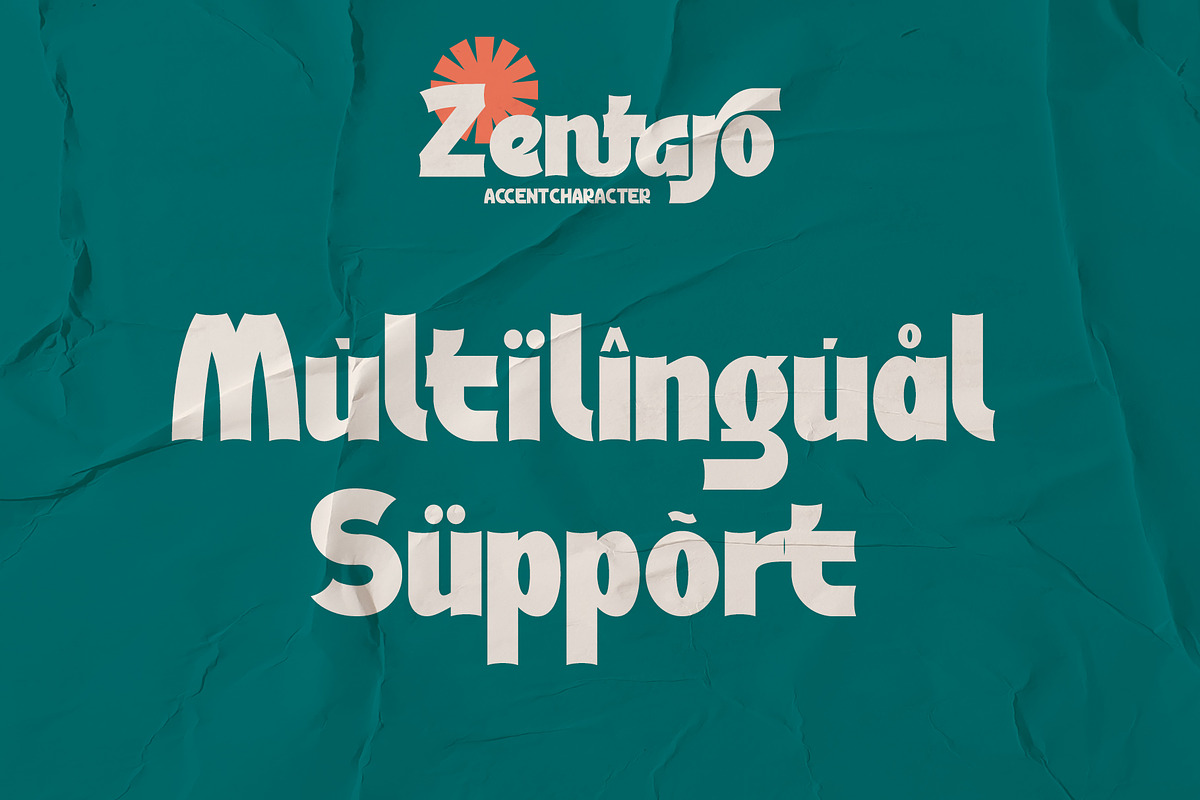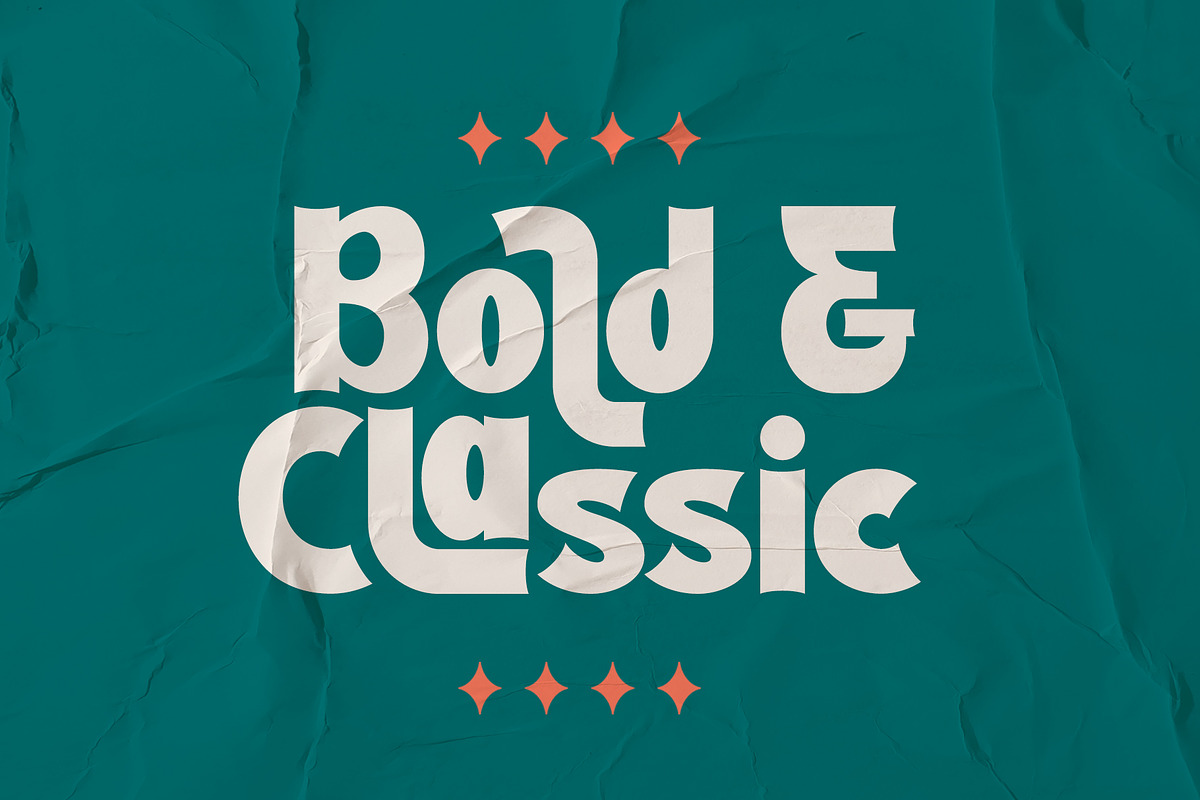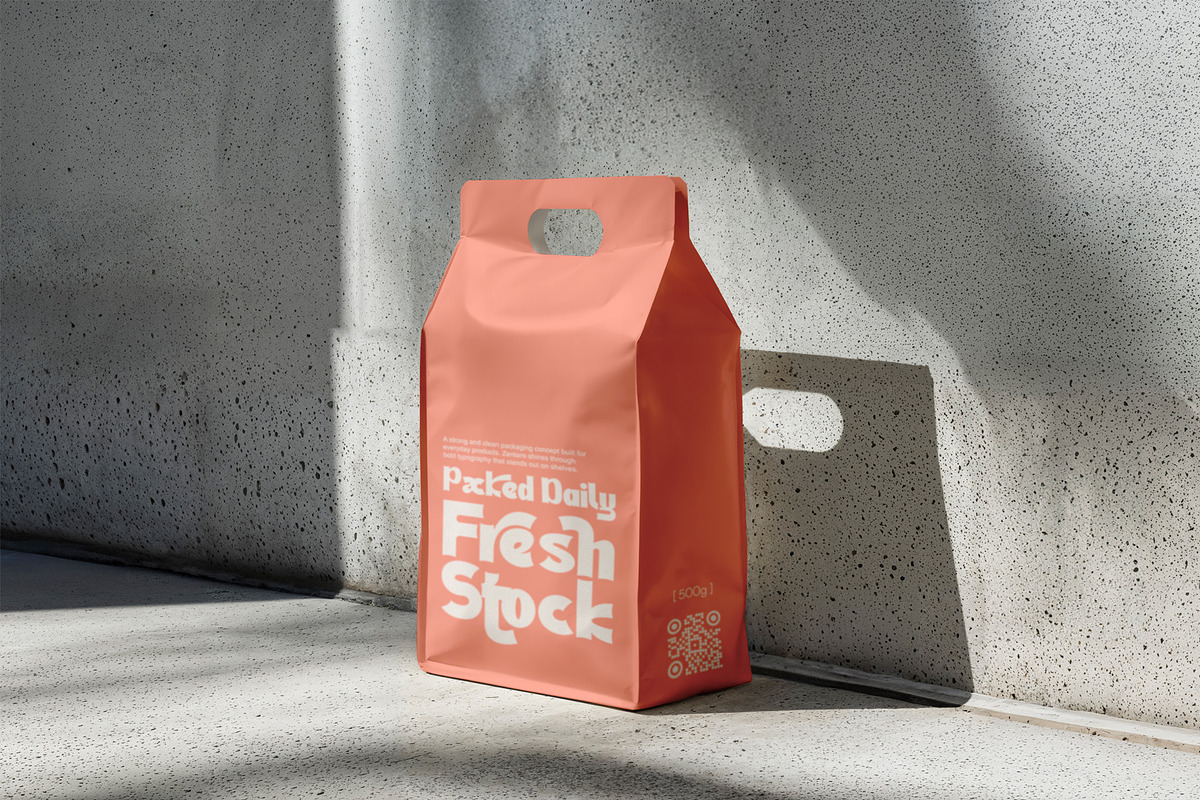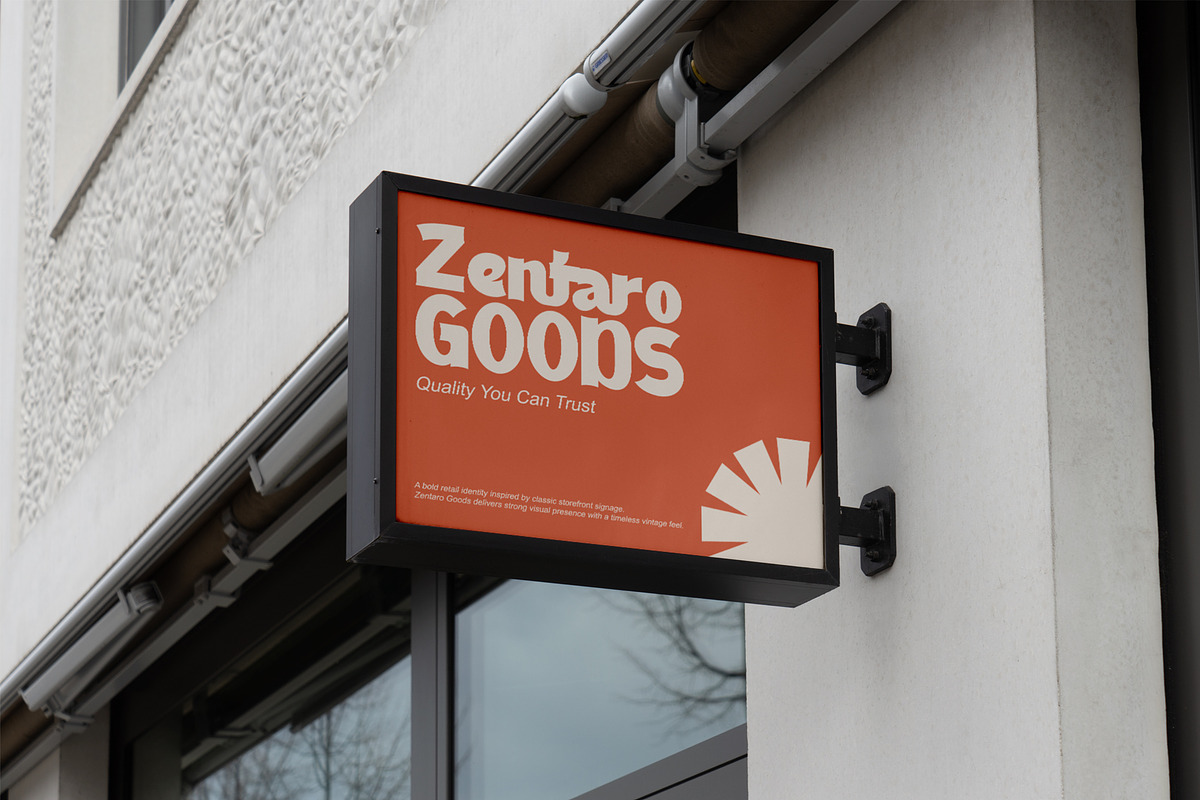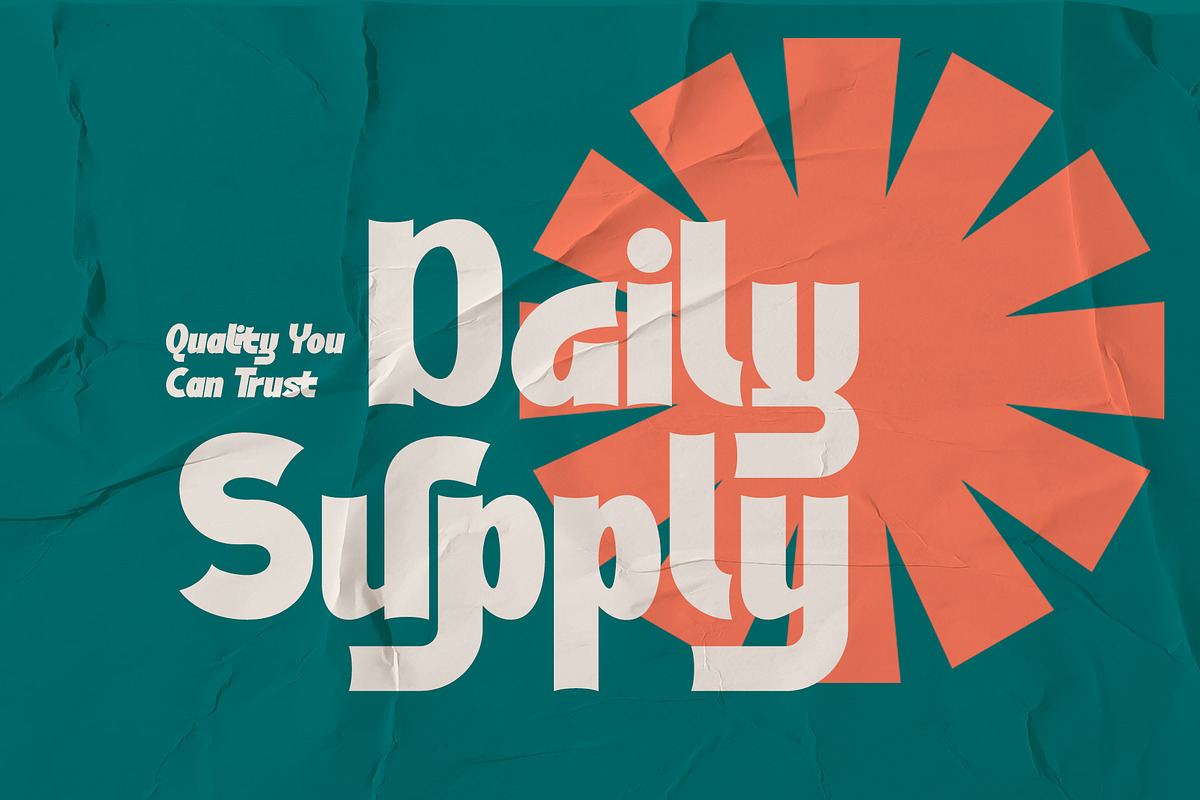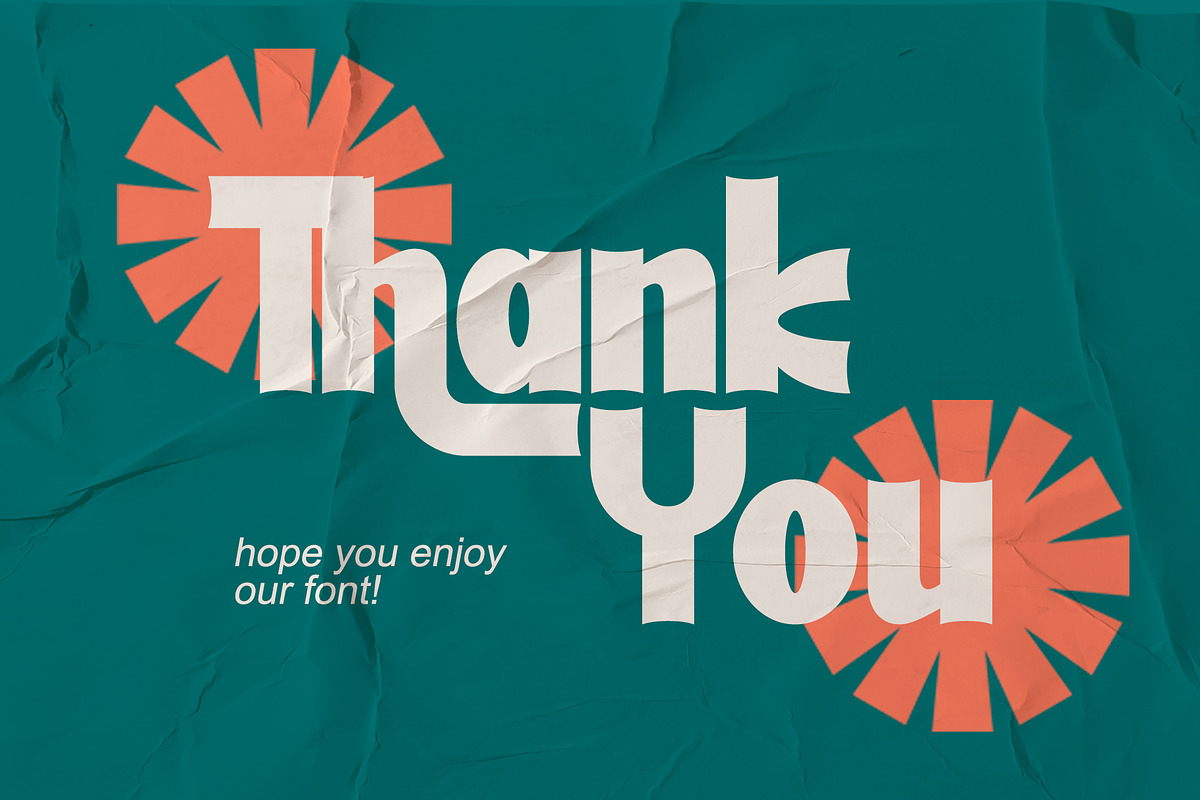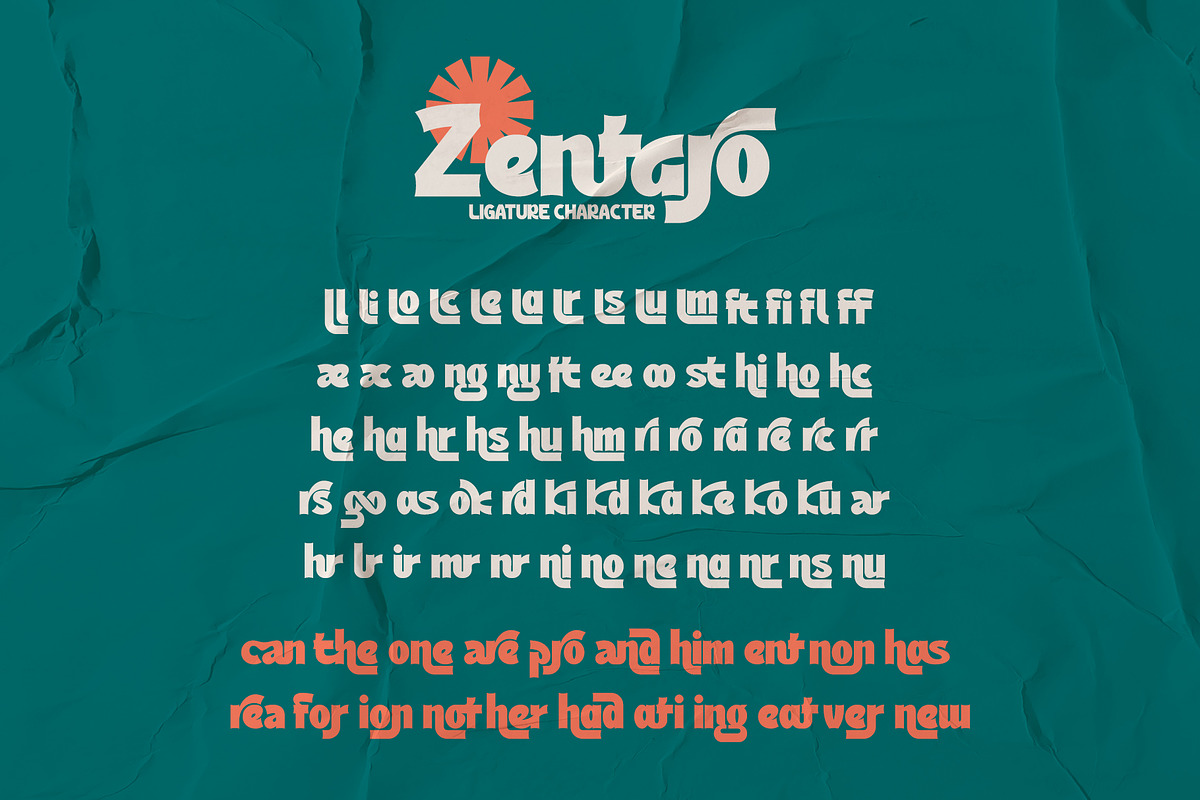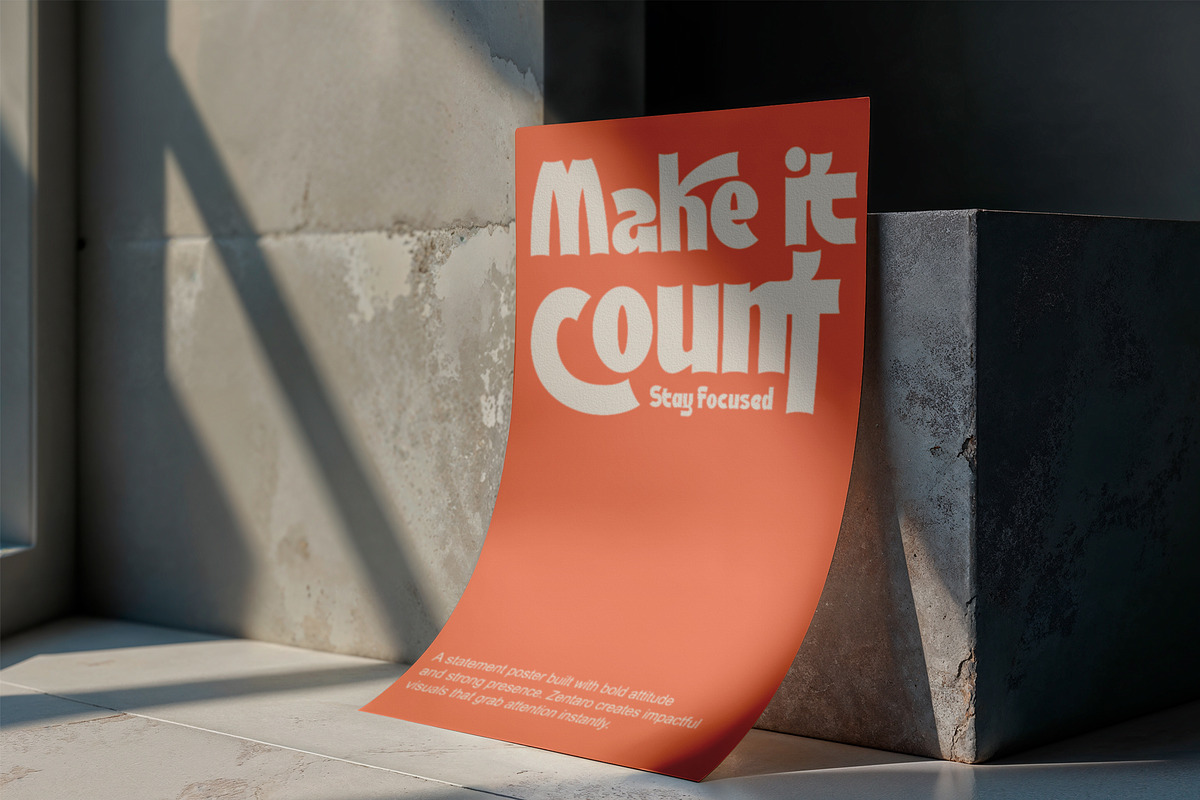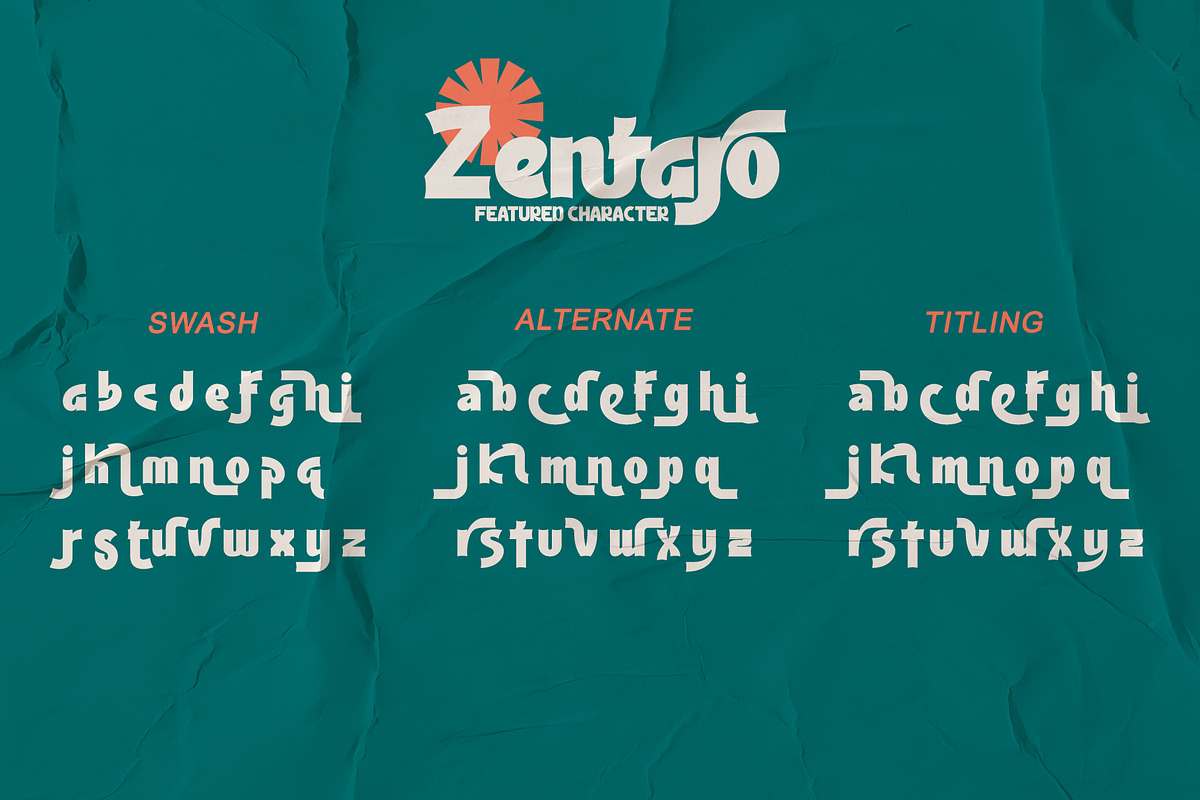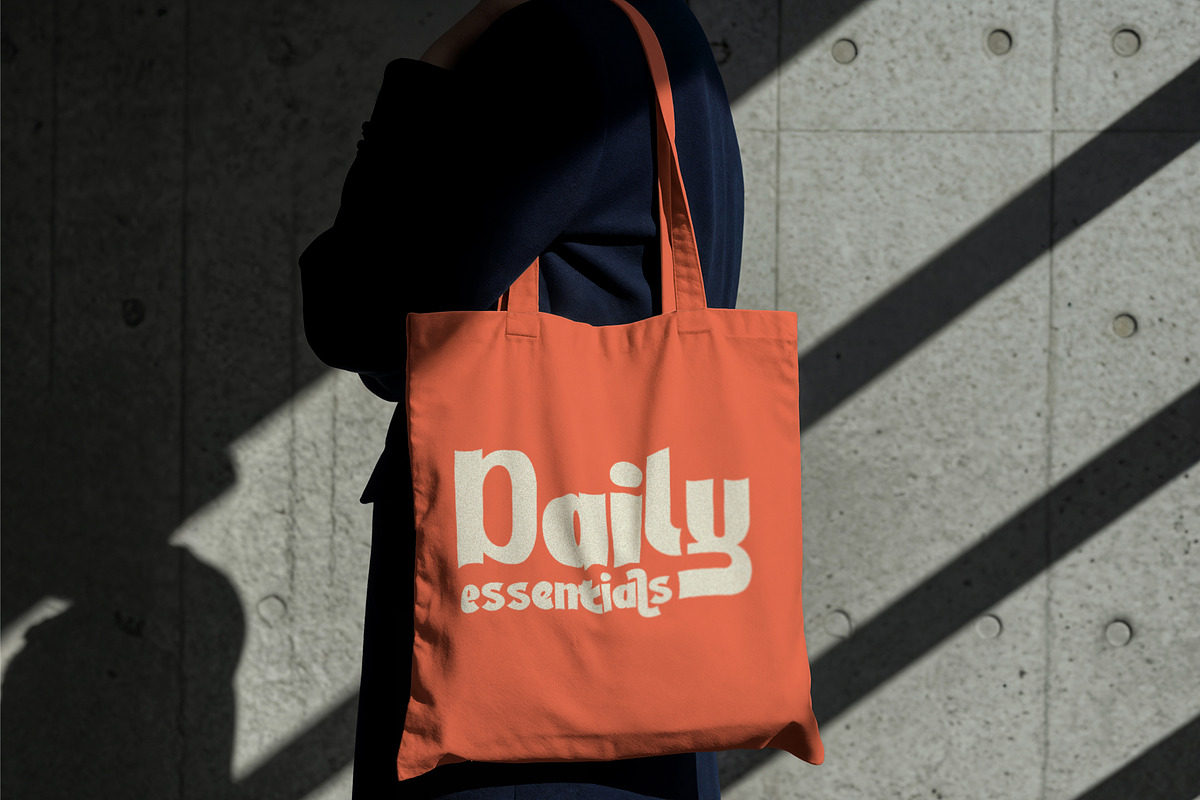
Zentaro - Retro Serif Font
Zentaro is a bold retro display serif font created to bring vintage personality, playful energy, and unmistakable character to modern design.
Inspired by classic advertising, mid-century packaging, vintage posters, and expressive 1970s typography, Zentaro combines chunky letterforms with distinctive curves and unexpected decorative details. Its strong silhouette creates an immediate visual impact, making every title, logo, and headline feel confident, nostalgic, and memorable.
Zentaro is especially effective for retro logos, food and beverage packaging, restaurant branding, posters, product labels, album covers, social media campaigns, and other creative projects that need a bold vintage identity.
Support multilingual; ä ö ü Ä Ö Ü ß ¿ ¡
lowercase and uppercase letters
Alternate, swash, titling & ligature